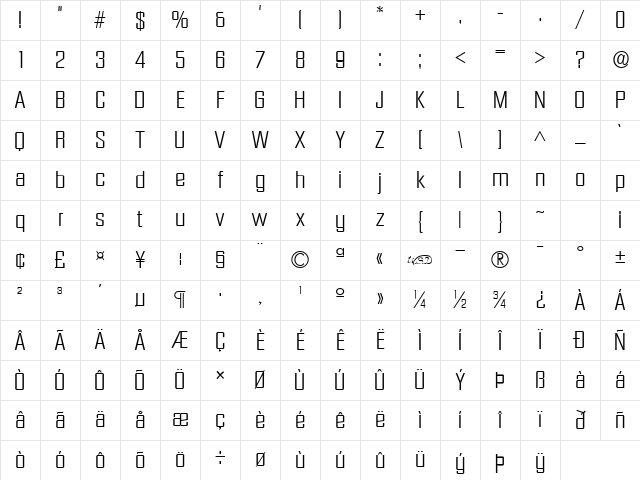
FacetLight Regular
FacetLight Family
Design Context for FacetLight
FacetLight is a composed and adaptable typeface that performs quietly and consistently across a wide range of design contexts. Its slender proportions lend an understated elegance to any composition.